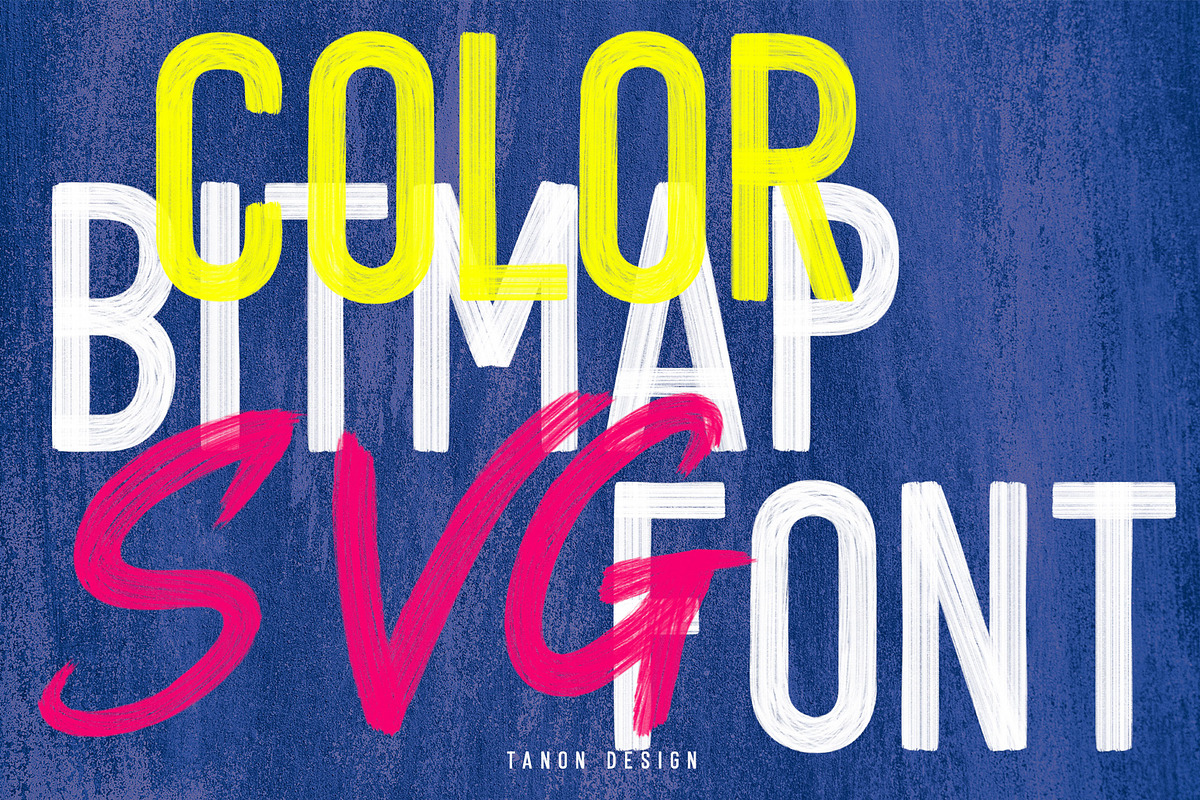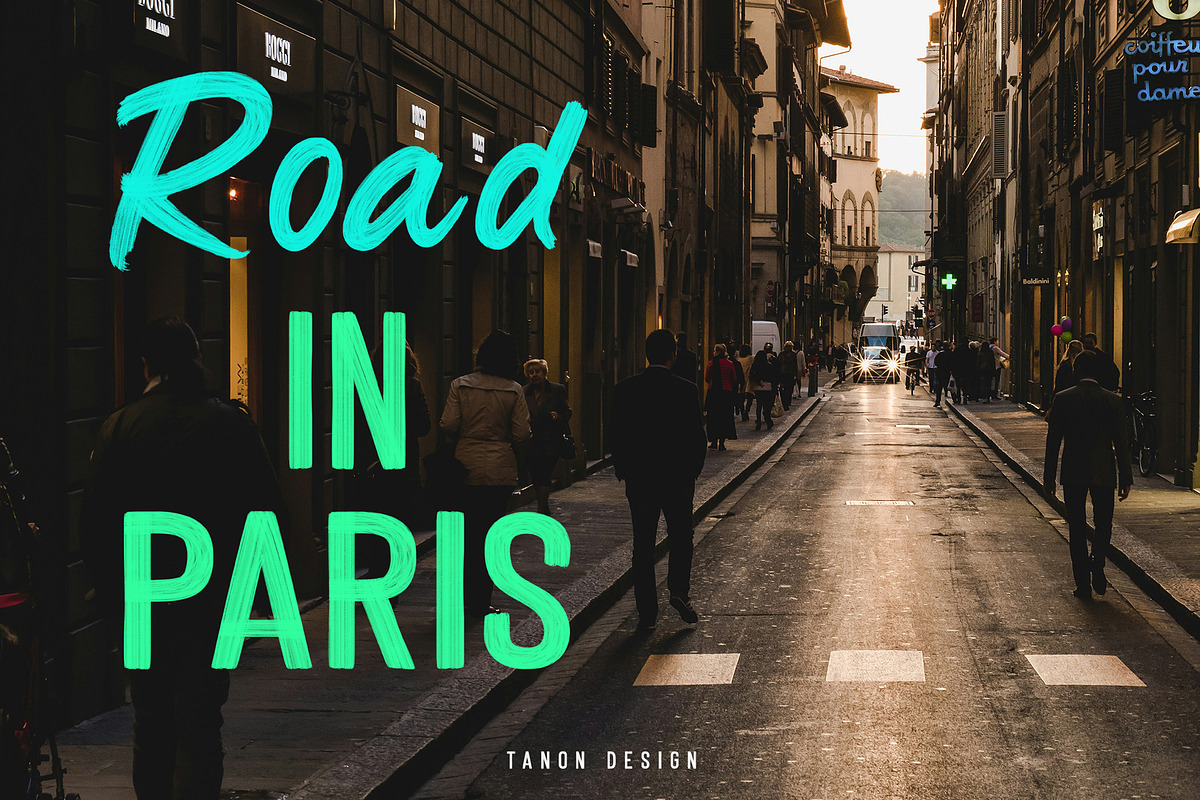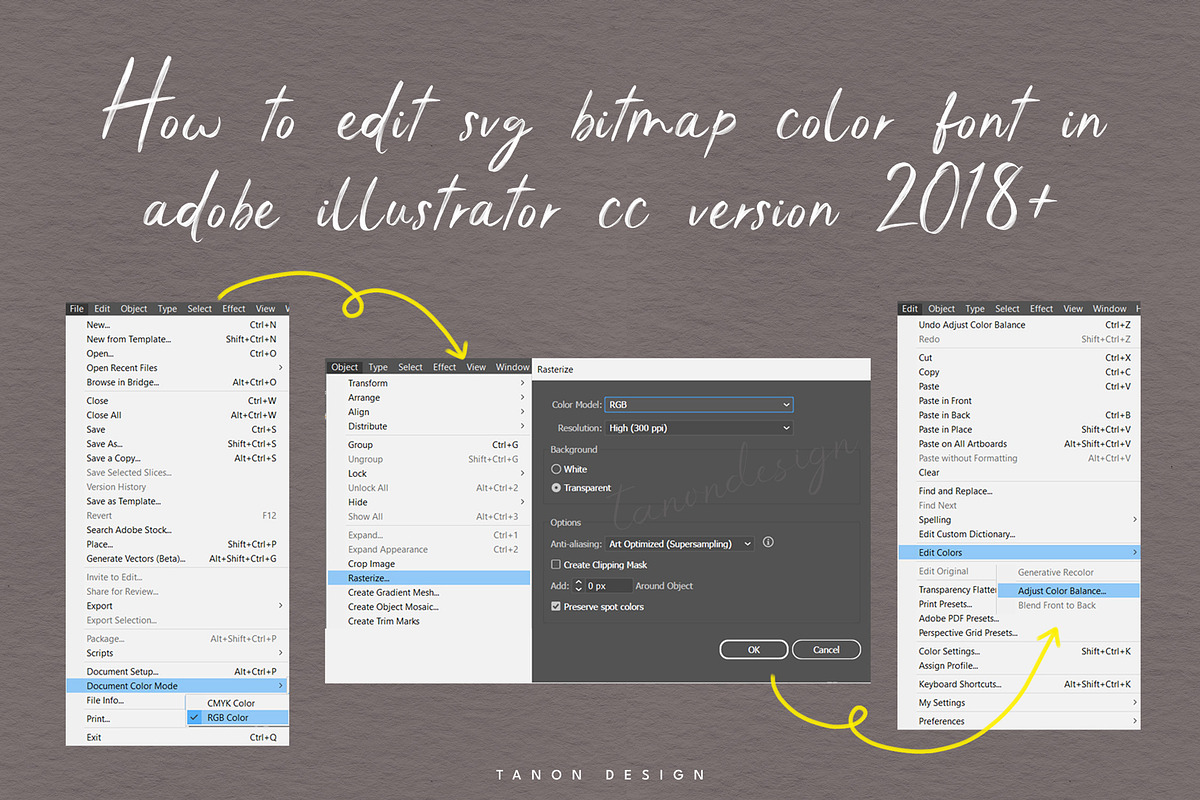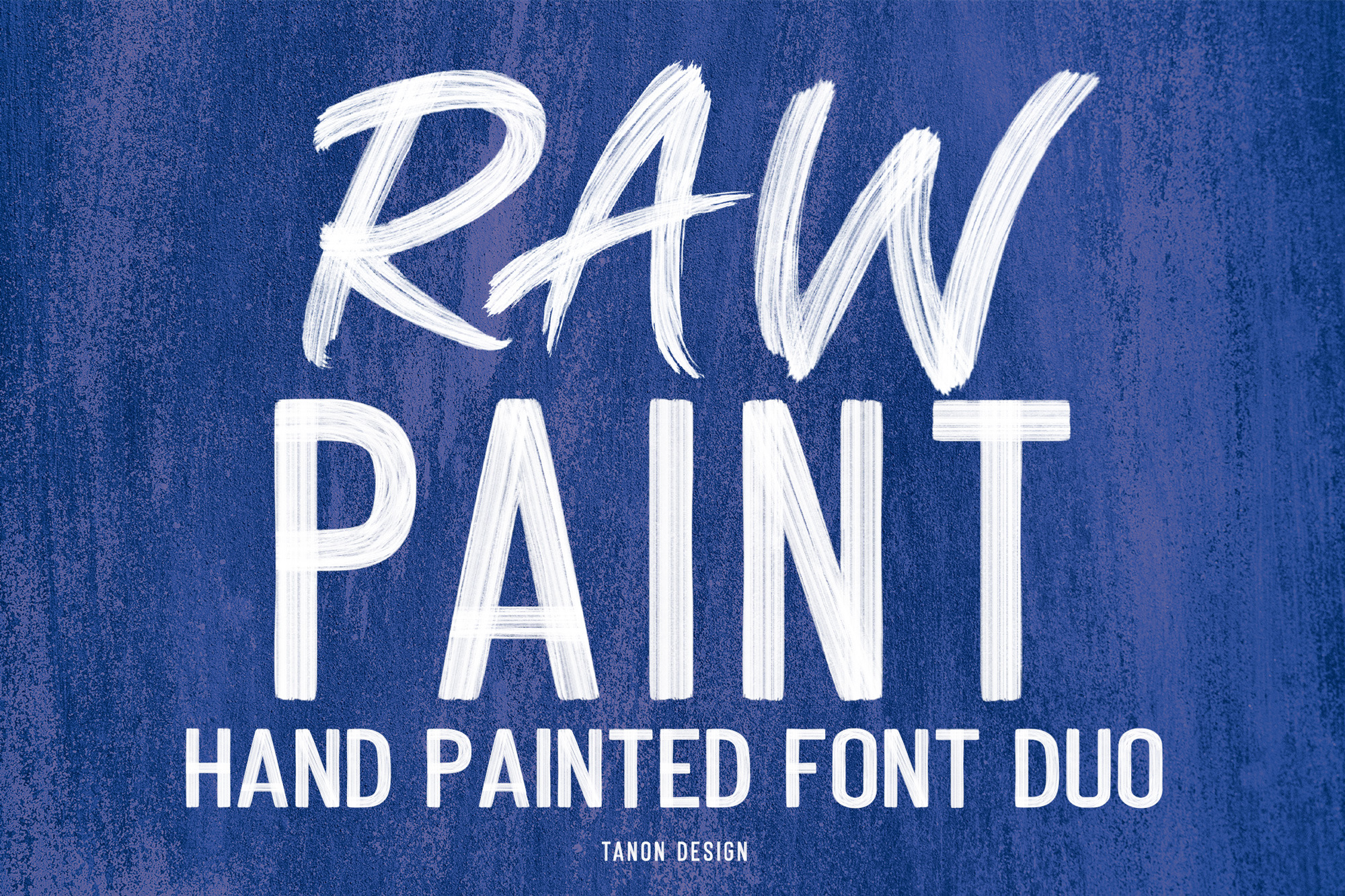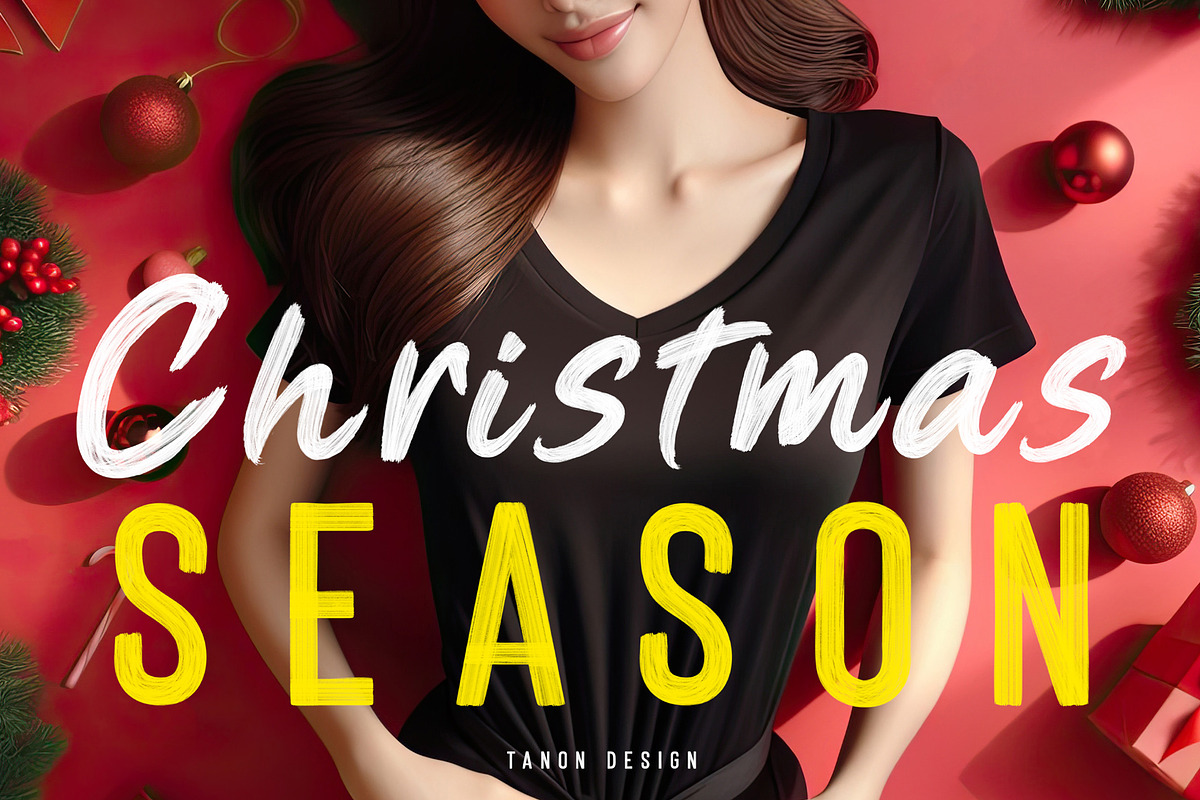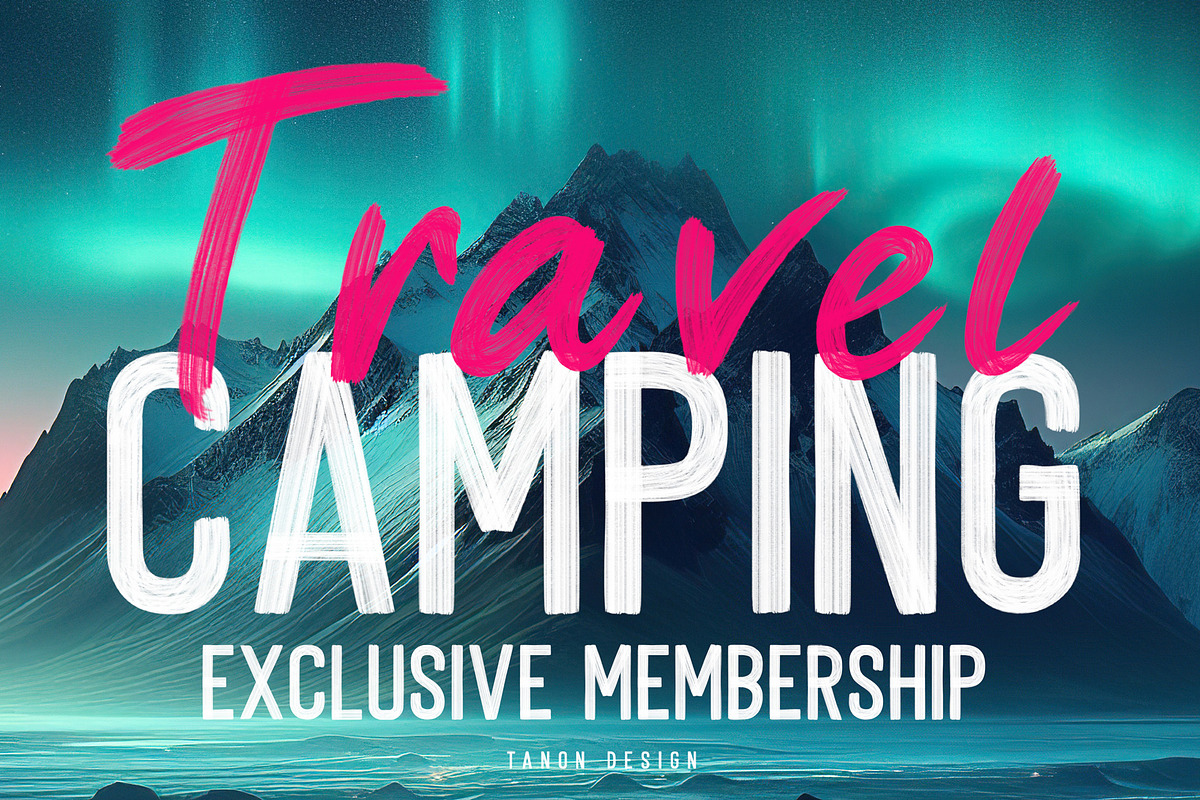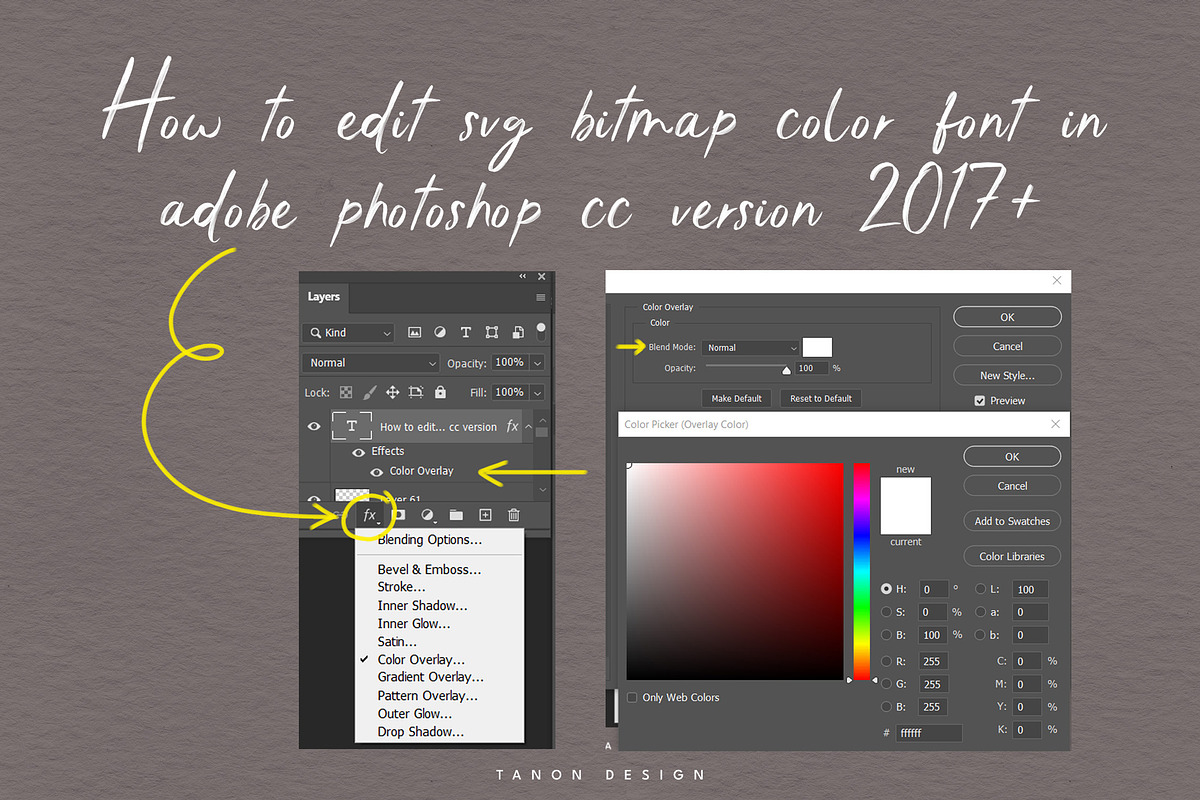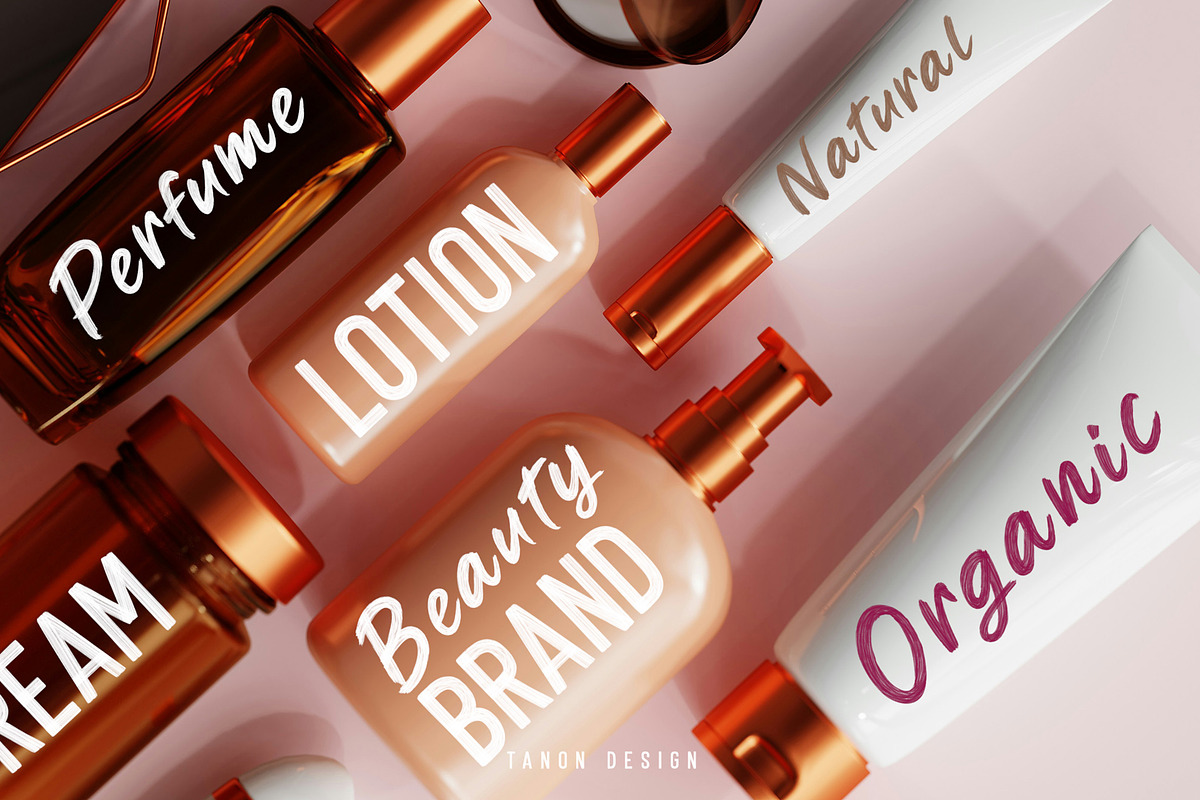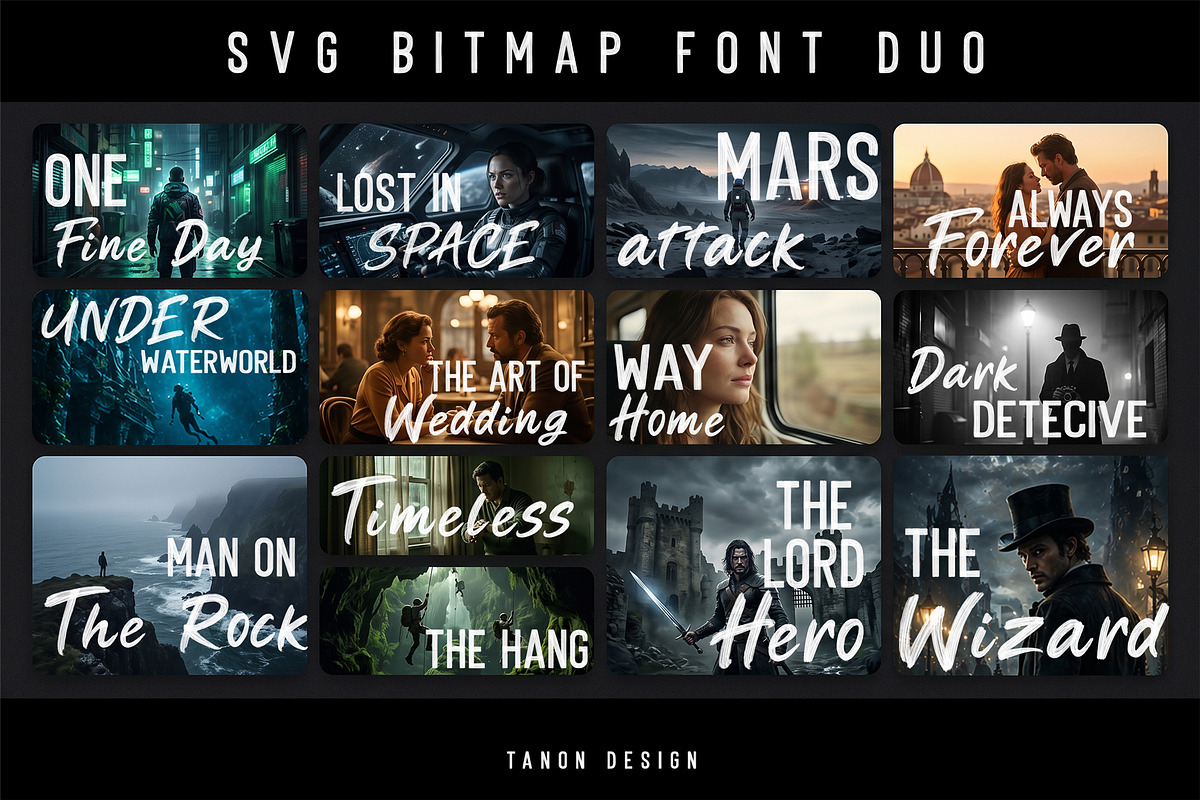
Raw Paint SVG Font Duo
"Introducing the Raw Paint SVG Color Font Duo, an authentic and highly realistic textured brush font. This versatile family features both a sweeping Script and a striking Bold version to give your work the gritty, perfectly imperfect feel of real brush strokes. Whether you're creating edgy poster prints, eye-catching greeting cards, engaging social media posts, or unique branding, Raw Brush brings a raw, artistic touch to any design.
Specially crafted for merchandise and product design, this font is your ultimate go-to choice for creating standout physical goods. It looks absolutely fantastic on everything from statement t-shirts and custom mugs to striking posters and personalized greeting cards. If you are looking to elevate your merchandise, the authentic, hand-painted texture of Raw Brush guarantees your designs will instantly catch the eye and completely stand out from the crowd!"